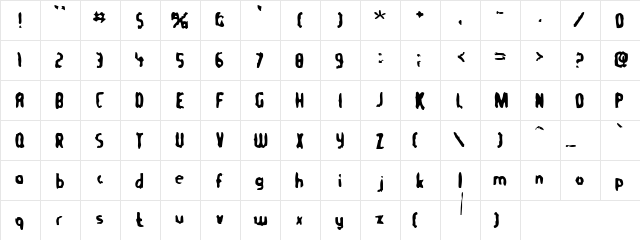
TommyGun Regular
Design Context for TommyGun Typeface
TommyGun offers clean, dependable letterforms without strong stylistic allegiance, making it a practical choice for designers who need flexibility.
Pro Tip: Pair TommyGun with a font of contrasting weight or personality to build a more expressive typographic hierarchy.